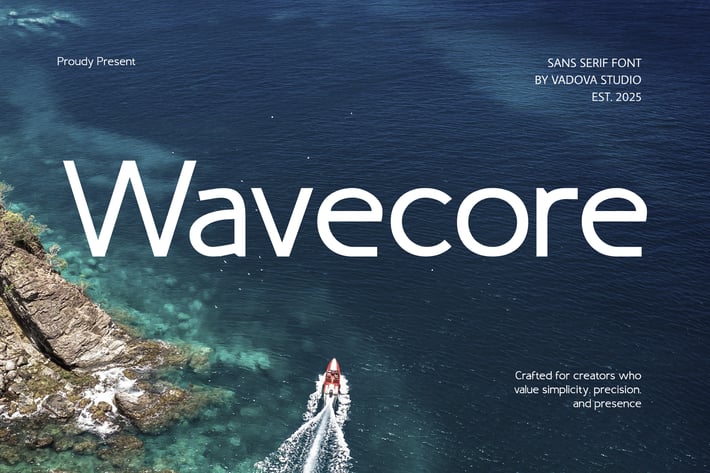
Wavecore Sans Serif Font
Wavecore is a bold and refined sans serif font that blends minimalist aesthetics with modern elegance. Designed with clean lines, balanced proportions, and a futuristic feel, this typeface is perfect for typographic posters, branding, editorial layouts, digital content, and corporate communication. Its versatile design includes uppercase and lowercase characters, numerals, and symbols—ideal for designers seeking sophistication and clarity in their work.